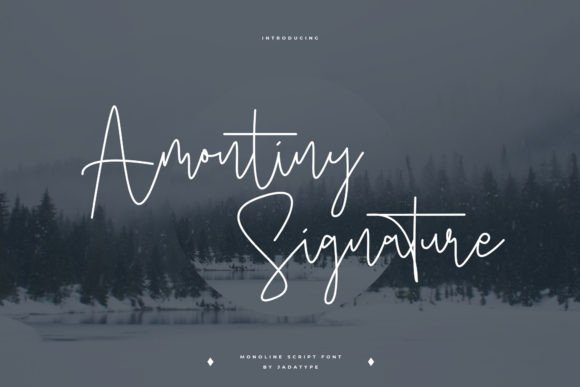
The Amontiny Signature Font: A Sweet and Delicate Script for Your Designs
Have you ever been in the middle of working on a project, and suddenly, you’re stuck on finding the perfect font? I recall a recent experience where I was designing a wedding invitation, and I just couldn’t find a script font that felt elegant, yet playful. That’s when I stumbled upon the Amontiny Signature font. Its sweet and delicate style immediately captured my attention, and I knew I had to share it with fellow designers and creative hobbyists.
What I Love About Amontiny Signature
- ✨ Sweet and delicate script style: Amontiny Signature has a natural and unique style that makes it incredibly fitting for a wide range of designs.
- ✅ Highly versatile: From wedding invitations to branding, and even craft projects, this font can adapt to various design needs.
- 🌈 Beautifully crafted: The attention to detail in this font is impressive, making it perfect for designs where you want to make a great impression.
While Amontiny Signature is an excellent font, there are a few things to consider:
- ⚠️ Legibility at small sizes: Like many script fonts, Amontiny Signature can be a bit challenging to read at very small sizes. It’s best used at larger sizes or for headlines.
- 🤔 Pairing with other fonts: To create visual harmony, you might need to experiment with pairing Amontiny Signature with other fonts. A clean sans-serif or serif font can work well as a complement.
The Amontiny Signature font was crafted with the intention of creating a beautiful, elegant script that could be used across various design projects. Inspired by classic calligraphy and modern digital typography, the designer aimed to create a font that feels both timeless and contemporary. While the specific details about the designer’s inspiration might be scarce, it’s clear that the goal was to produce a font that’s both versatile and aesthetically pleasing.
Q: What makes Amontiny Signature unique?
A: Amontiny Signature stands out due to its sweet, delicate script style and high versatility, making it suitable for a wide range of design projects.
Q: Is Amontiny Signature suitable for body text?
A: While Amontiny Signature is beautiful, it’s primarily designed for headlines or short paragraphs. For longer body text, consider a more legible font.